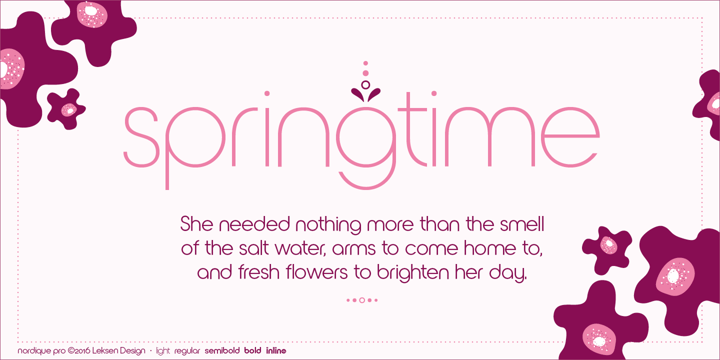
Nordique Pro
por Leksen Design
La familia tipográfica Nordique Pro fue diseñada por Andrea Leksen y publicada por Leksen Design. Nordique Pro contiene 17 estilos y opciones de paquete familiar.
Inspired by her Swedish and Norwegian heritage, Andrea Leksen created this modern geometric sans serif reminiscent of Scandinavian design and typography. With its tall x-height, Nordique will be best showcased at large sizes, in headlines and other display uses. The Light, Regular, Semibold, Bold and Italic versions each contain over 50 ornaments, swashes, alternates and borders to play with—a modern take on the traditional rosemåling and kurbits painting styles.
Type designer, graphic designer and educator Andrea Leksen serves clients through her studio, Leksen Design. She invests in the world of typography through font releases, speaking engagements and publications. Ms Leksen's font releases include Applesassy, Mr Gabe, Nordeco, Nordique and Bemis. In-between font releases, she is most likely found gardening, parenting, sailing or tango dancing.